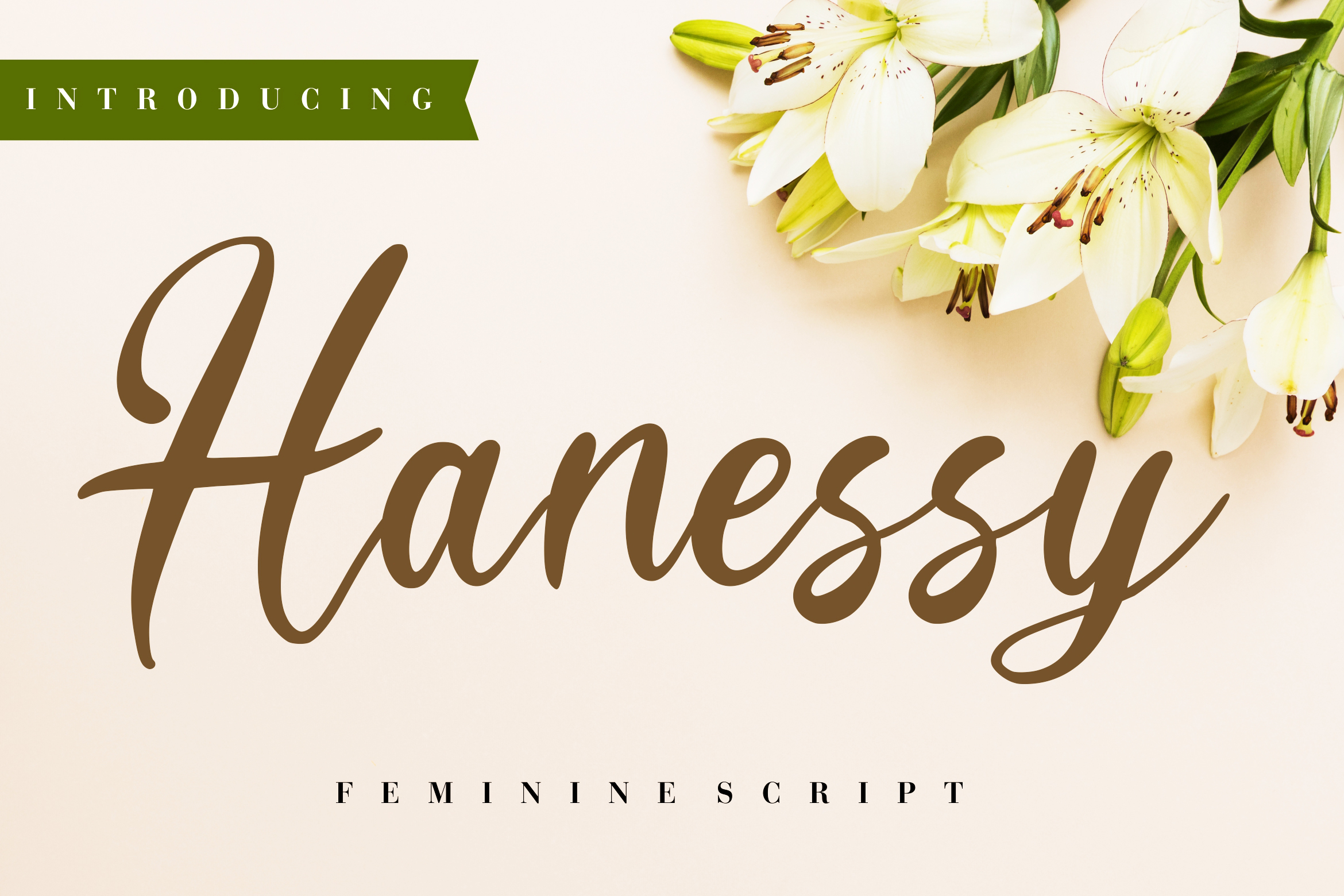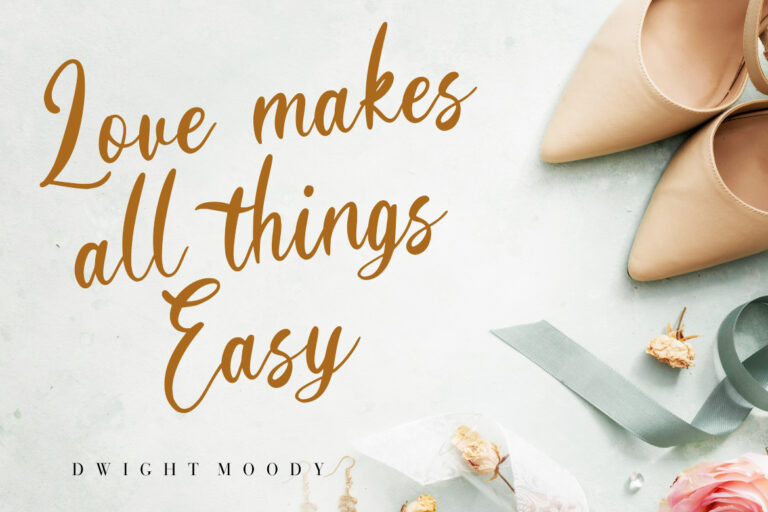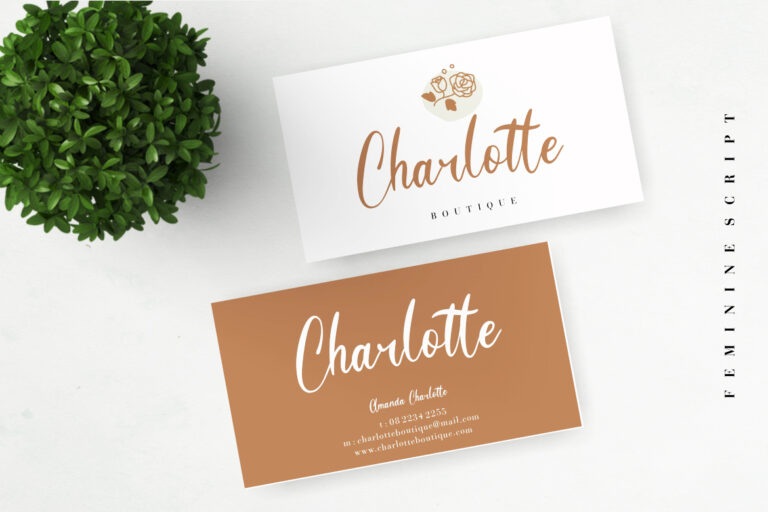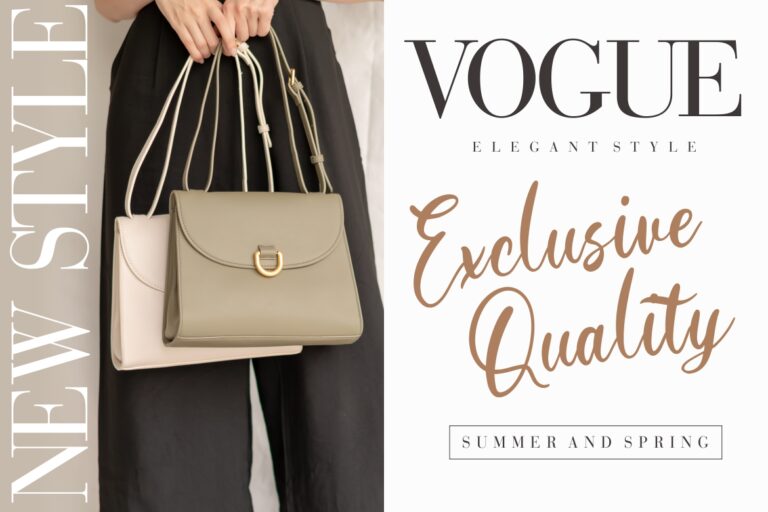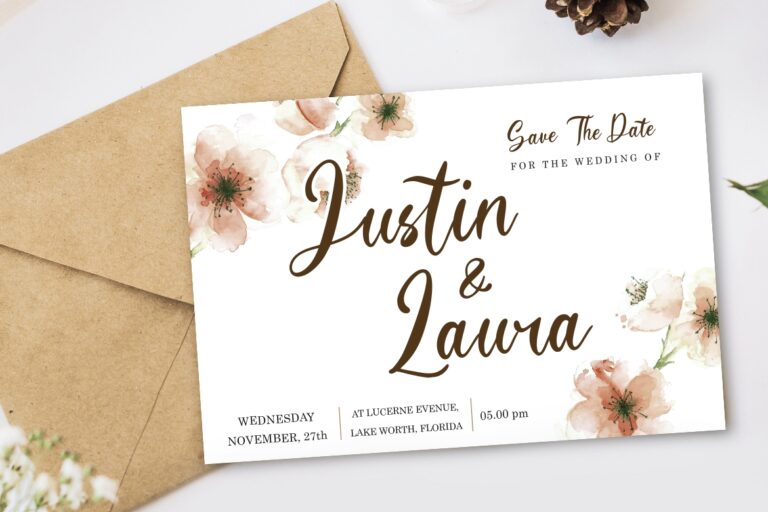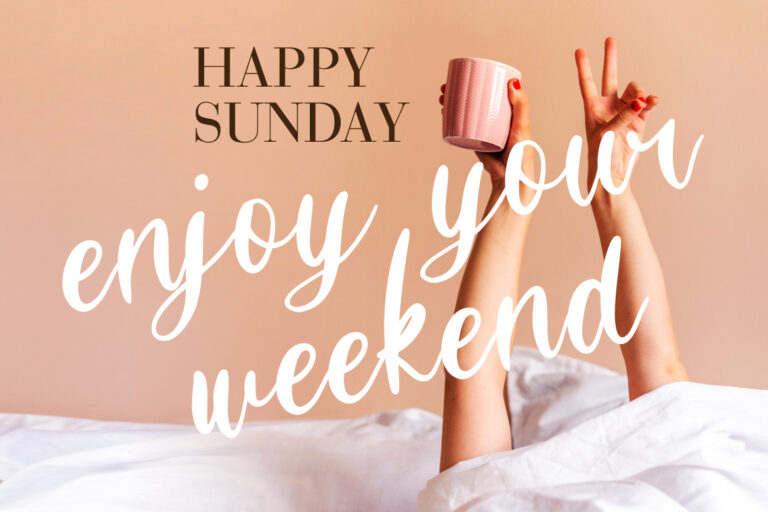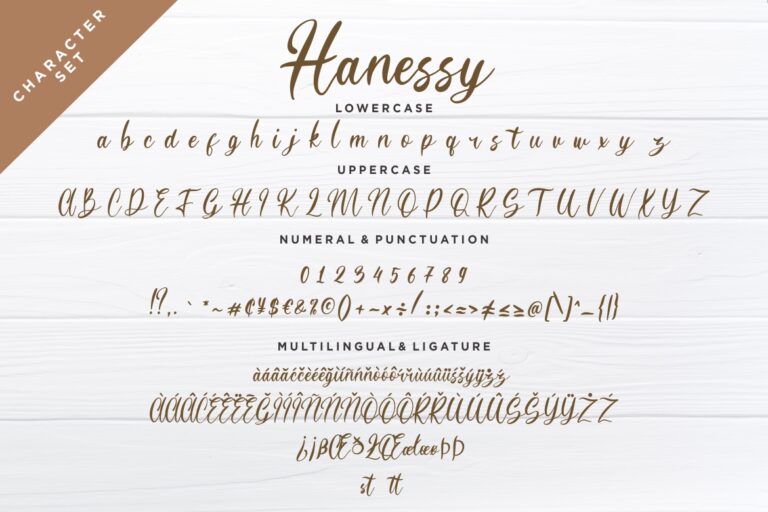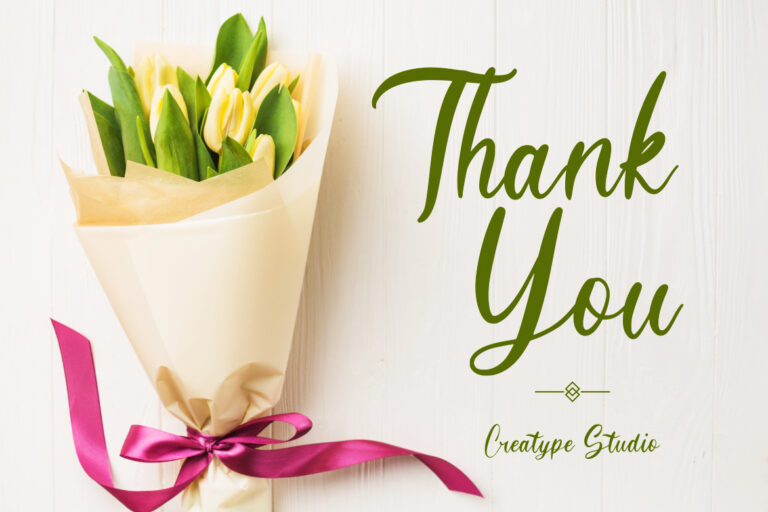
Hanessy Feminine Script
Hanessy is handwritten script with feminine touch make this font looks sophisticated classy and elegant.
Hanessy is perfect for branding projects, logo, wedding designs, social media posts, advertisements, product packaging, product designs, label, photography, watermark, invitation, stationery and any projects that need handwriting taste.
- Fonts include multilingual support for; ä ö ü Ä Ö Ü ß ¿ ¡